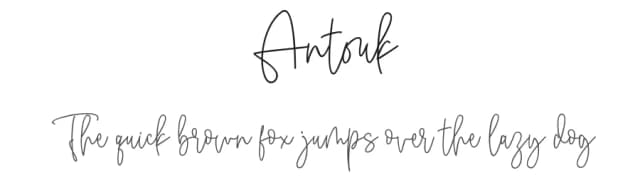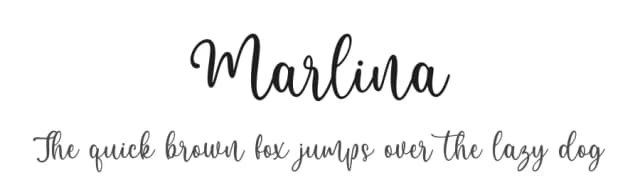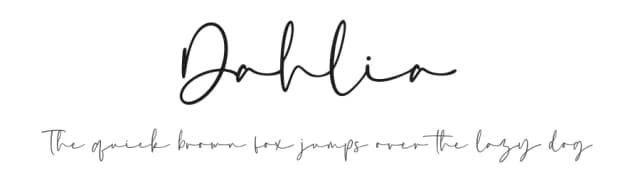
About Dream Collection Font
| Font Family | Dream Collection |
| Full Name | Dream Collection |
| Glyph Count | 201 glyphs |
| PostScript Name | DreamCollection |
| Designer | Revo Farisky |
Dream Collection ships with 1 OpenType feature you can switch on in apps that support them (Illustrator, InDesign, Affinity, Figma, CSS font-feature-settings).
Dream Collection supports 213 languages.
Dream Collection Font is a script font that shines as a display or heading face. Pair it with a clean sans-serif or serif font for body text β the contrast creates a clear hierarchy while the two styles stay balanced and easy to read.
Dream Collection Font
by Revo Farisky